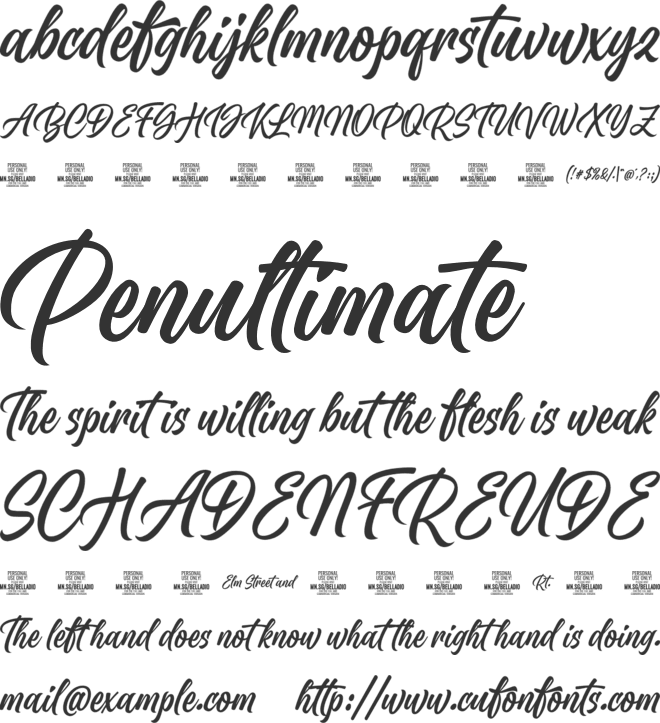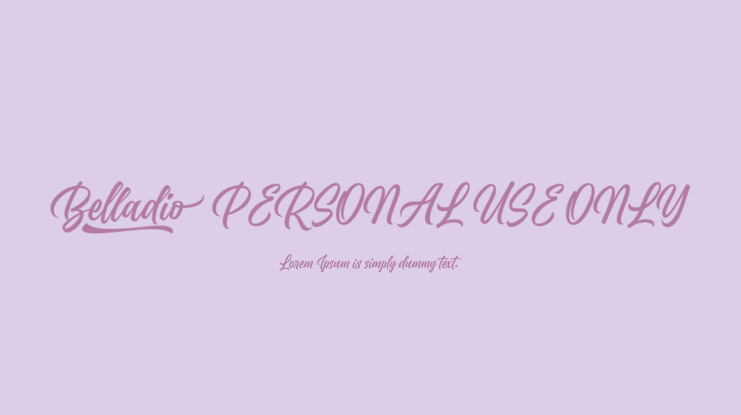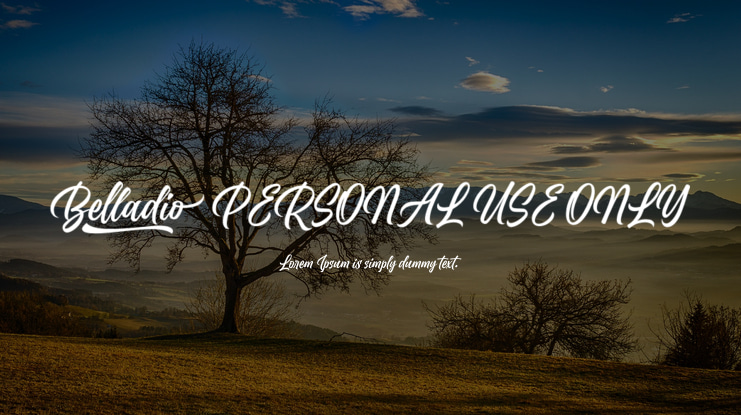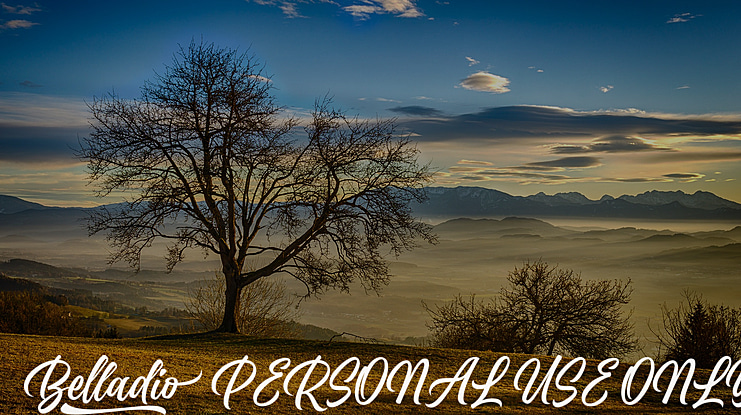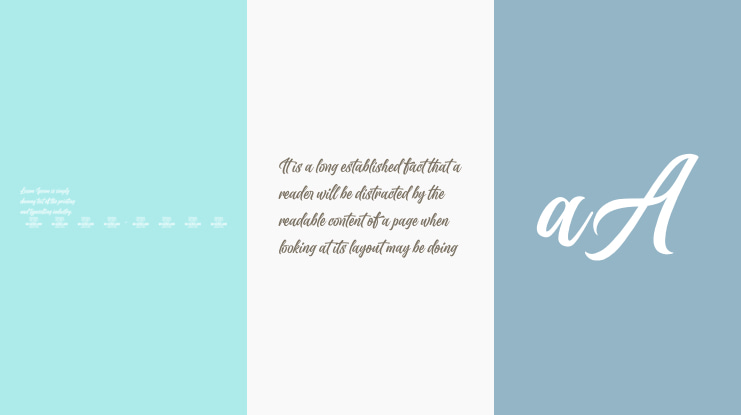
Belladio PERSONAL USE ONLY Font
It’s a bold calligraphy script font which natural movement and elegant style. This font was created to help you designing logotype with urban style for your Brand or your clients, and also you can use it for designing all of the graphic stuff such as badge, sign, Esport, headline, urban design, T-shirt/apparel, Poster, etc. Belladio was designed for personal characters such as strong, confidence, dynamic, readable, Energic, dynamic, etc.